How to Use Eye Catching Fonts in Your Websites from Google’s Library
Once upon a time designers were limited to using system fonts in web design, which spawned a trend of creating text-based images and graphics. This technique may have made websites look better, but it introduced other problems. Webpages loaded slower and there was zero SEO value in using graphical headings. Along came changes to browsing that allowed font embedding, but this too was a cumbersome and inconsistent method of getting around Arial and Comic Sans.
Today, support for cloud fonts is almost a standard, to the joy of designers everywhere. While premium services such as Typotheque and Typekit let you take advantage of a huge selection of fonts, they are costly and not always practical. Google’s solution with Version 2 of their free online font library has been to provide a high quality and dependable service for embedding fonts. Here are a few ways you can get the most out of using this fantastic resource.
Google Web Fonts
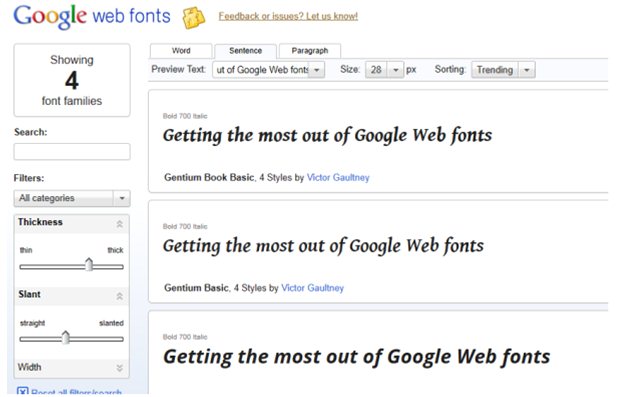
Find the perfect font
Allow your website content to drive your choice of font and choose appropriate styles, which suggest the qualities you want your design to communicate. Enter preview text into the font finder interface, and then proceed to fine-tune your search by selecting filters and setting attributes using the handy sliders in the left sidebar. If you have a hard time getting results, reduce the specifications by collapsing one of the attributes such as the “width” option.
Choose the Right Style
Each font in the Google library has several different styles associated with it. If you plan to use the font as a heading, a heavier weight may grant a more powerful effect. Many fonts also include a bold or italic version that should be used in favor of the default typeface. These various styles are hidden in the default preview list, so you will need to click the “show all styles” link in the bottom right corner of the font’s preview box to see what it has to offer. Clicking “hide all styles” will collapse the preview.
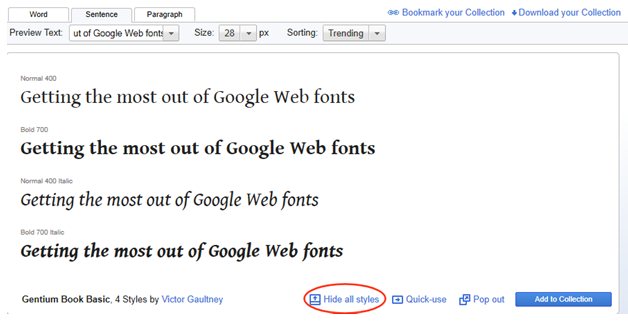
Choose Harmonic Combinations
Limit yourself to a small number of typefaces when building your font combinations – three or less should do. Choose fonts that share similar attributes or consider using different weights or styles of the same font.However, go for a bit of contrast; if your fonts are too similar with only a small variation, it can make your typography look confused. The goal is to highlight a distinct style.
Some Excellent combinations put together by designer Josh Johnson are:
- Lobster & Cabin
- Allerta & Crimson
- Arvo & PT Sans
- Corbin & Nobile
- Ubuntu & Vollkorn
Test Drive
Once you have found the perfect font combination, selected your styles, and added them to your collection, clicking the “Review” button will bring you into the Test Drive interface where you can view your font selections in action and make any necessary adjustments.
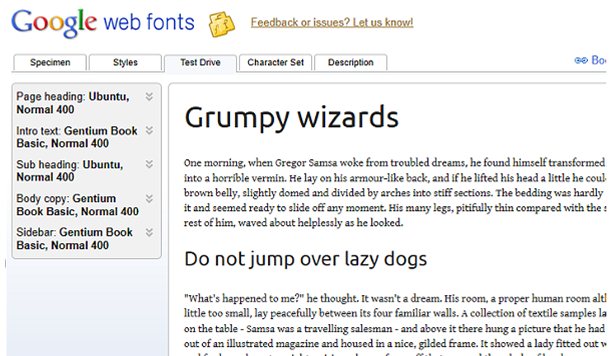
To understand how this method works, each font is separated by a pipe. Specific styles are appended to the font name by a colon and separated using commas. Spaces in the font names must be replaced with a plus.
Example: http://fonts.googleapis.com/css?family=Gentium+Book+Basic:700,700italic|Ubuntu:400,700italic
Always place your link code before any “<script>” tags in your head to allow Internet Explorer to detect them properly. As an alternative, you can opt to use @import in your CSS document instead:
Add a Transparent Shadow for Text Smoothing
A common complaint with embedded fonts viewed in Windows is the jagged edges that plague some font styles. This is a serious problem for designs that use extremely light or thin fonts, where jagged edges completely ruin the font’s elegance or readability. Thankfully, there is a solution in the CSS text:shadow property. By setting a 1pixel transparency, browsers that support this rule will display the text with a light anti-aliasing effect. Add the property to any class where one of your Google fonts is specified, or use it in your universal declarations to apply it to the whole site.